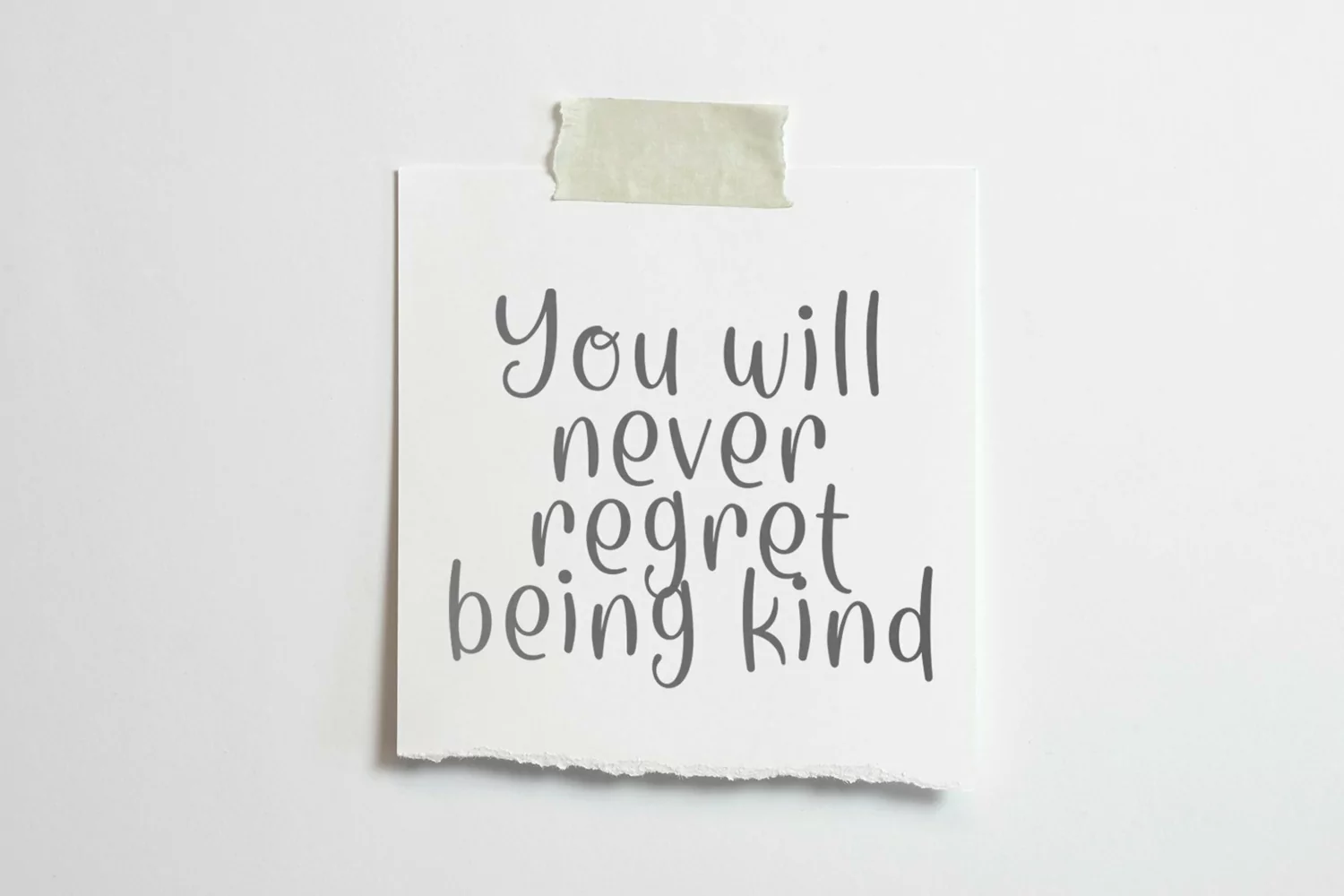
Care is a handrawn brush typeface. Perfect for display, poster, quotes, film, craft needs, book cover, business card, packaging, merchandise, branding, logo, logotype, header, title, and many more.